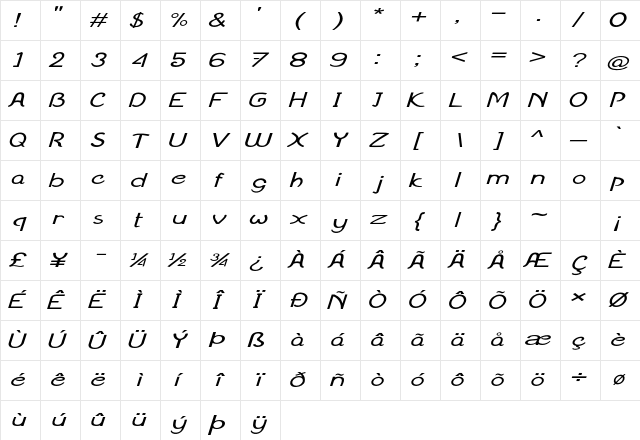
Bernaise Extra-expanded Italic
Style: Extra-expanded Italic
Bernaise Family
Bernaise Extra-expanded Italic
Complete Bernaise Extra-expanded Italic glyph index. Displaying only characters natively supported by Bernaise Extra-expanded Italic font.
Design Context for Bernaise
Bernaise is a composed and adaptable typeface that performs quietly and consistently across a wide range of design contexts. The slanted form adds forward momentum and visual energy.
Pro Tip: Use Bernaise for emphasis, pull quotes, and subheadings where its slanted energy can add rhythm to the layout.